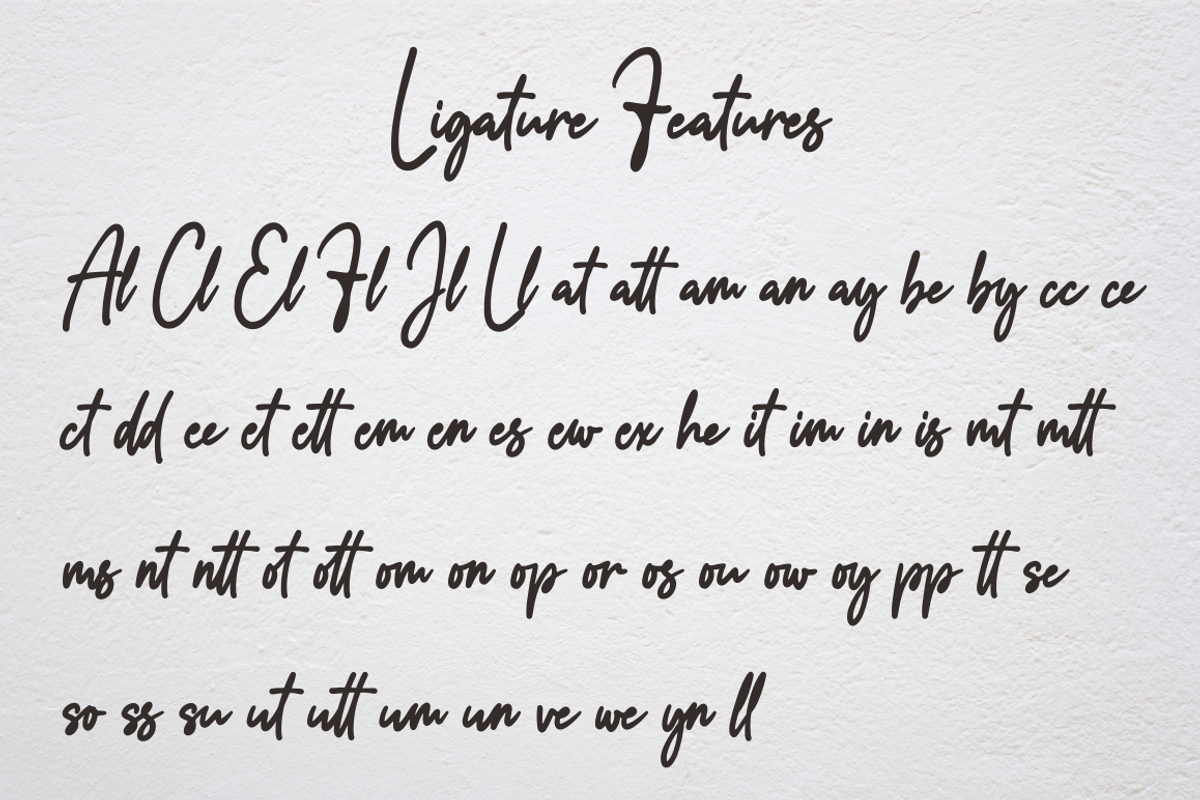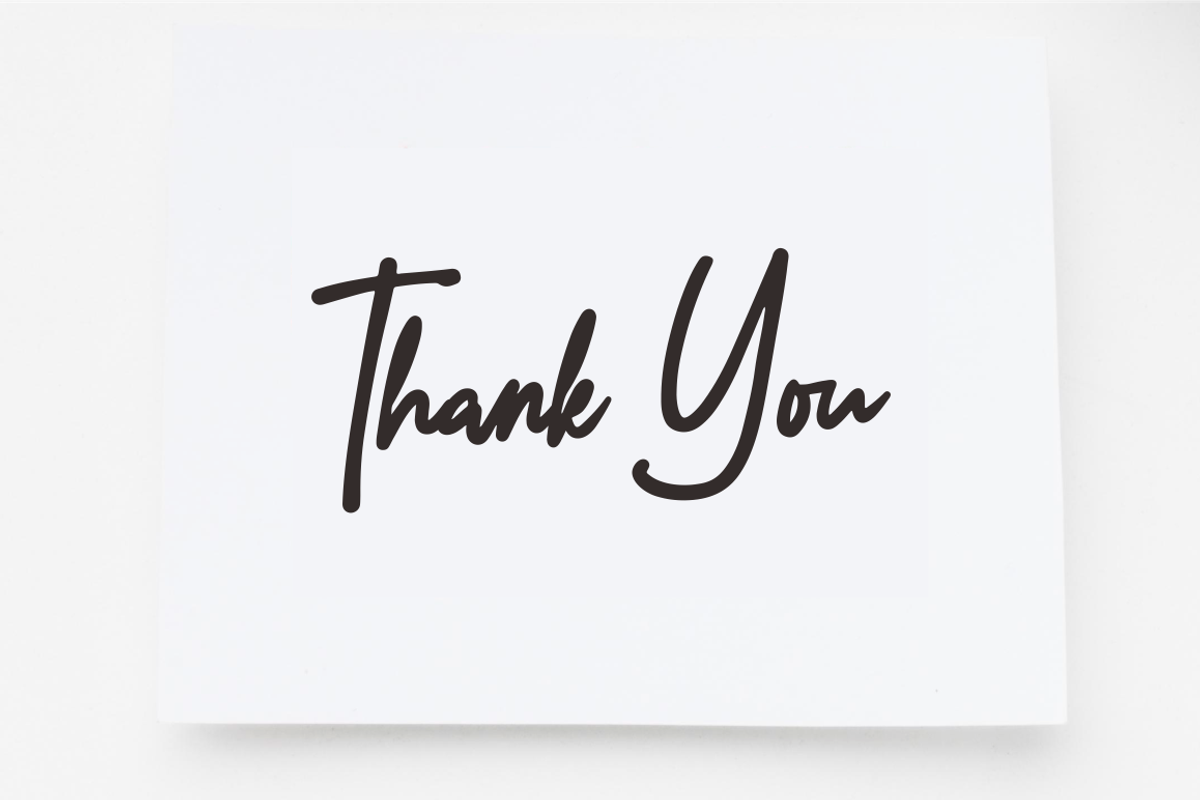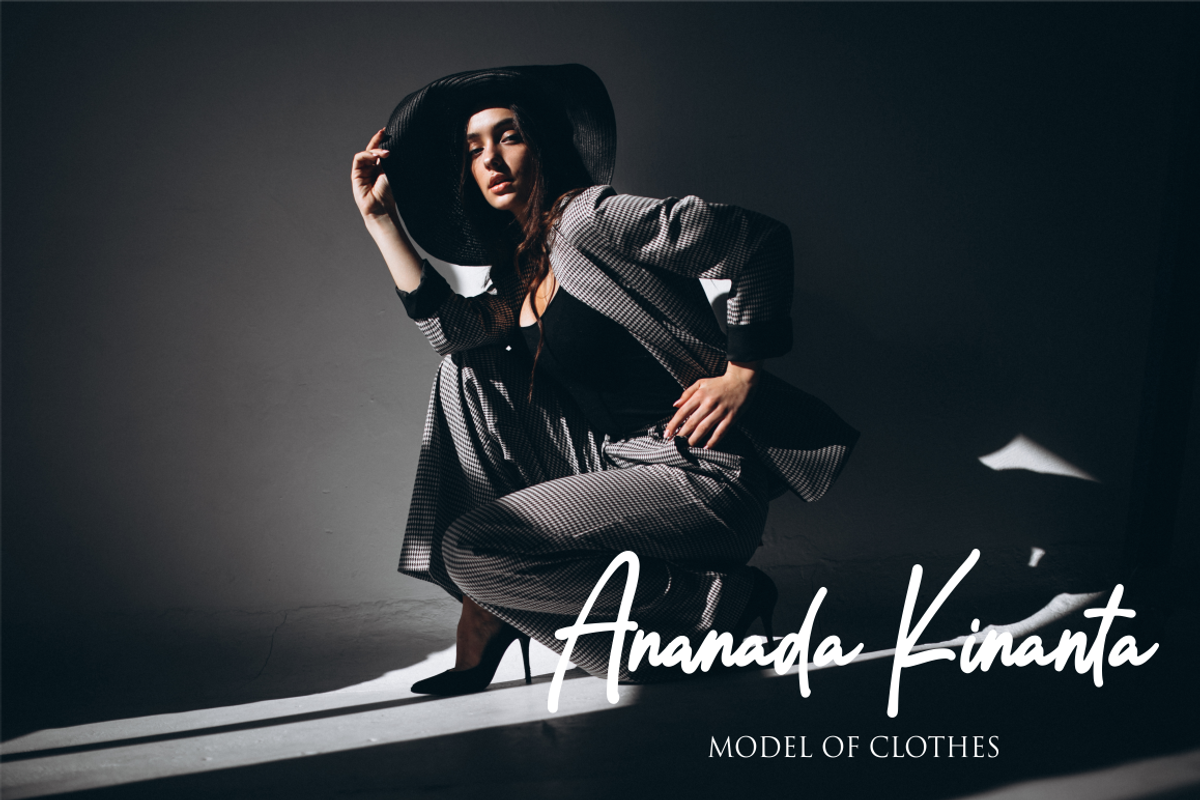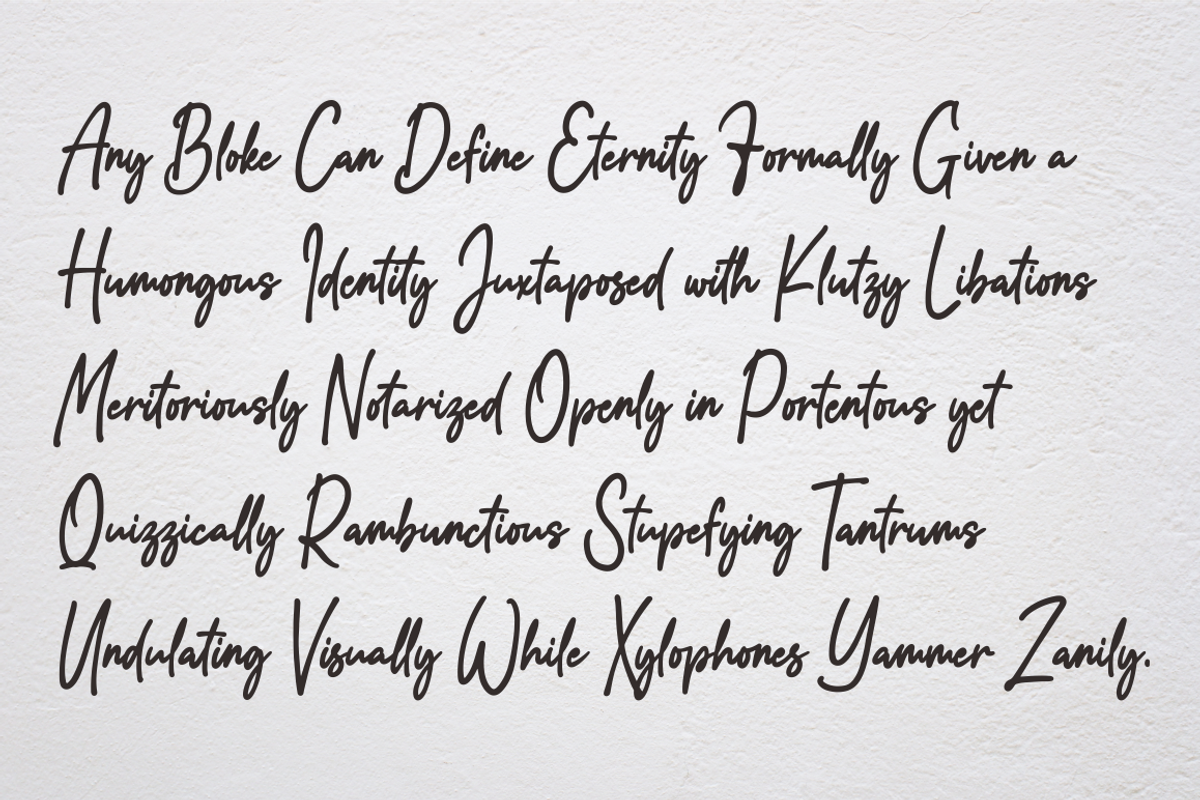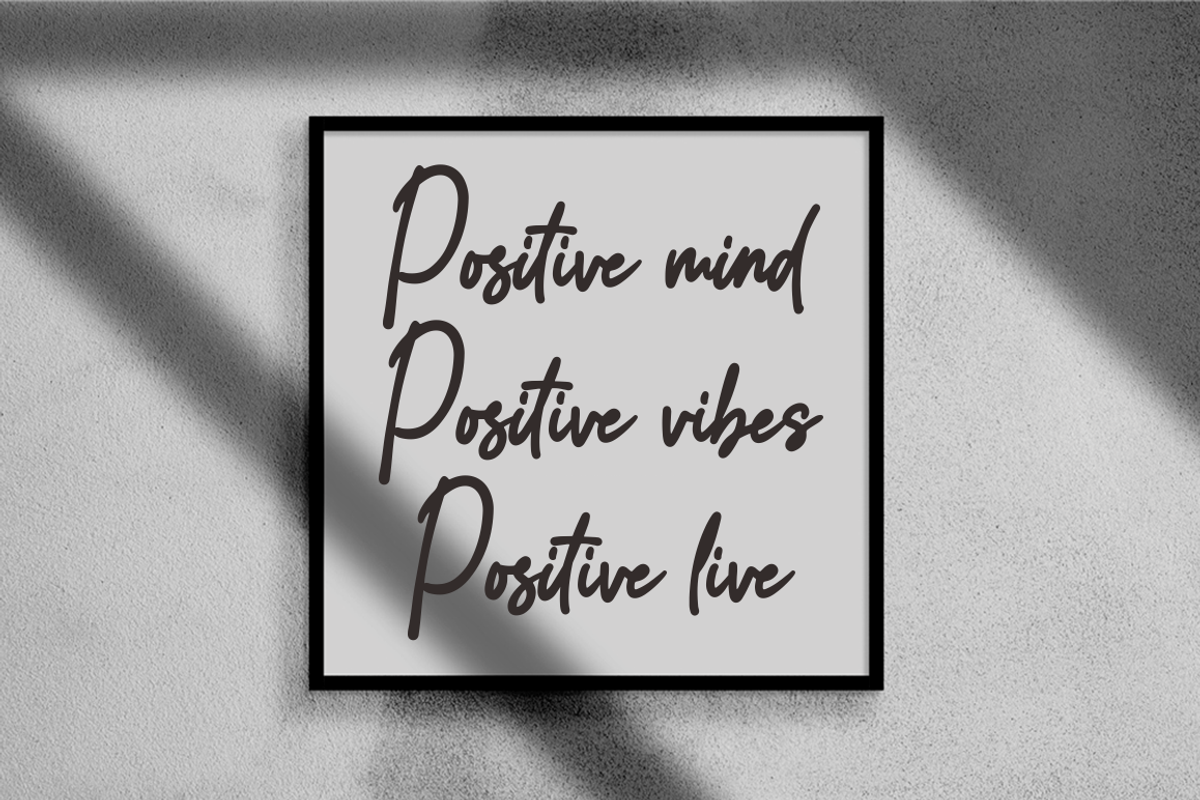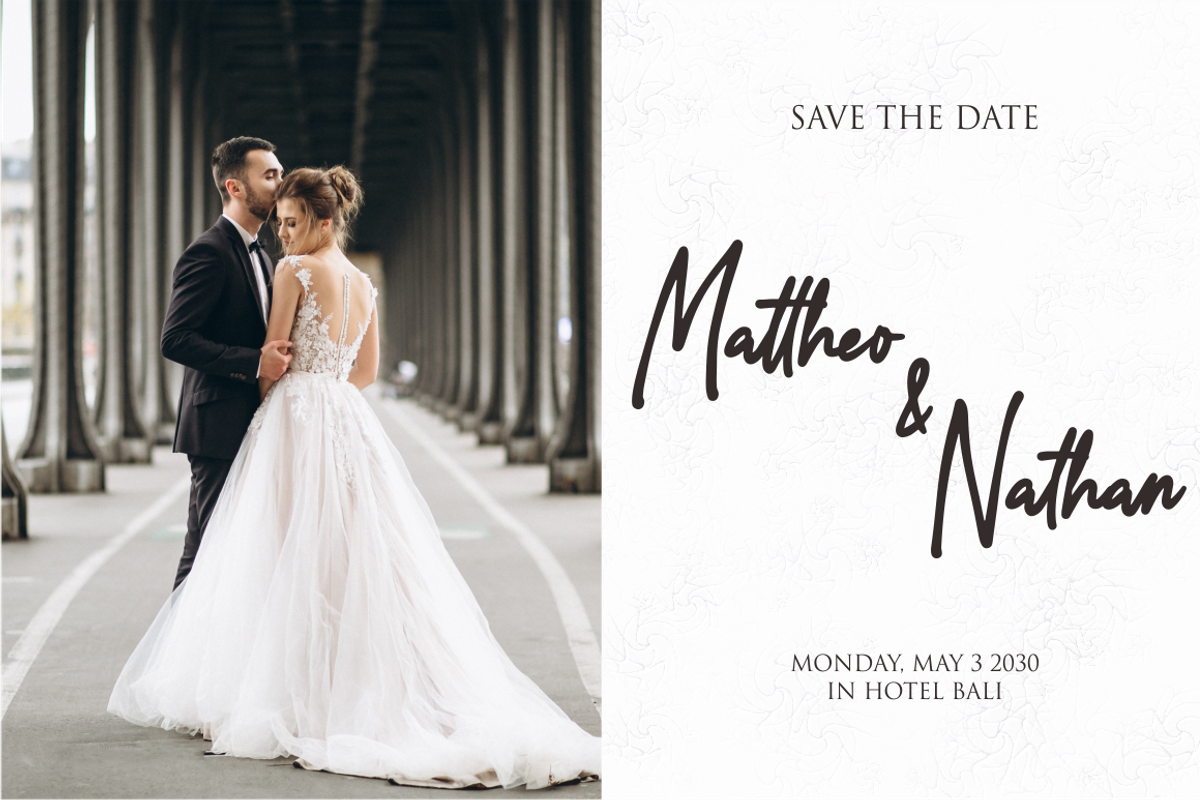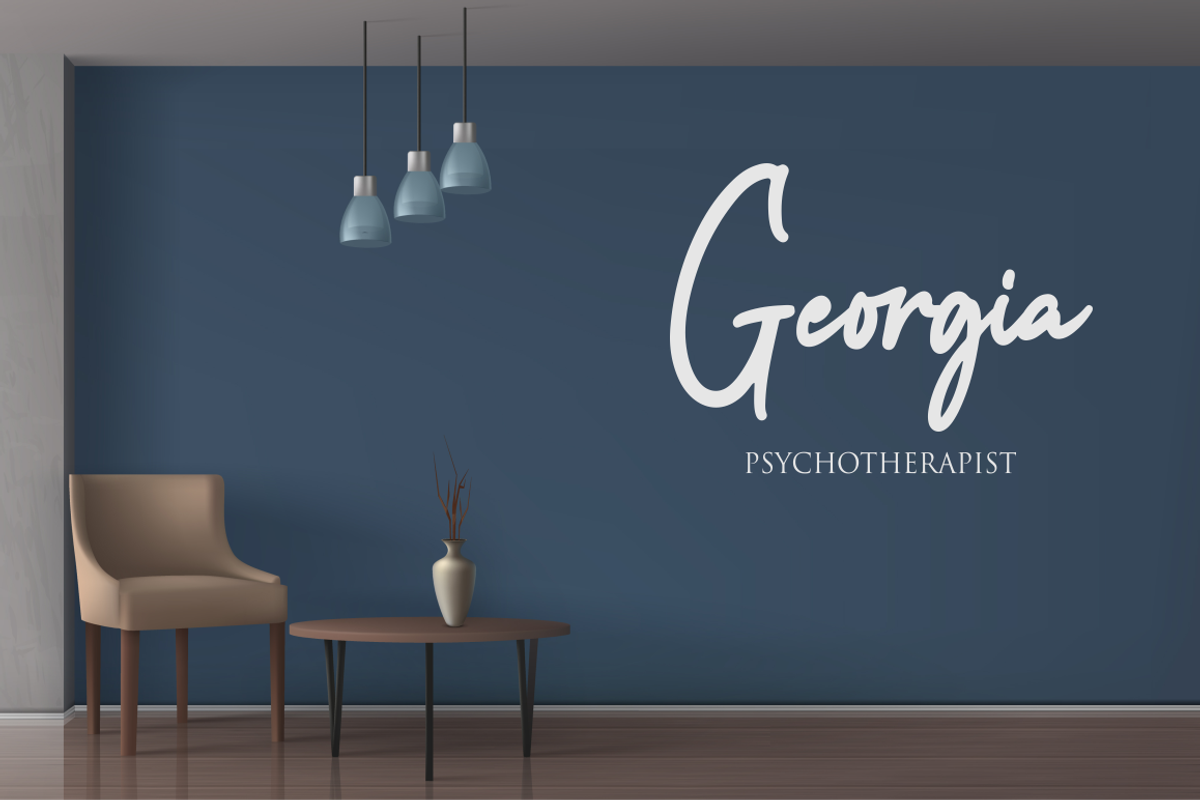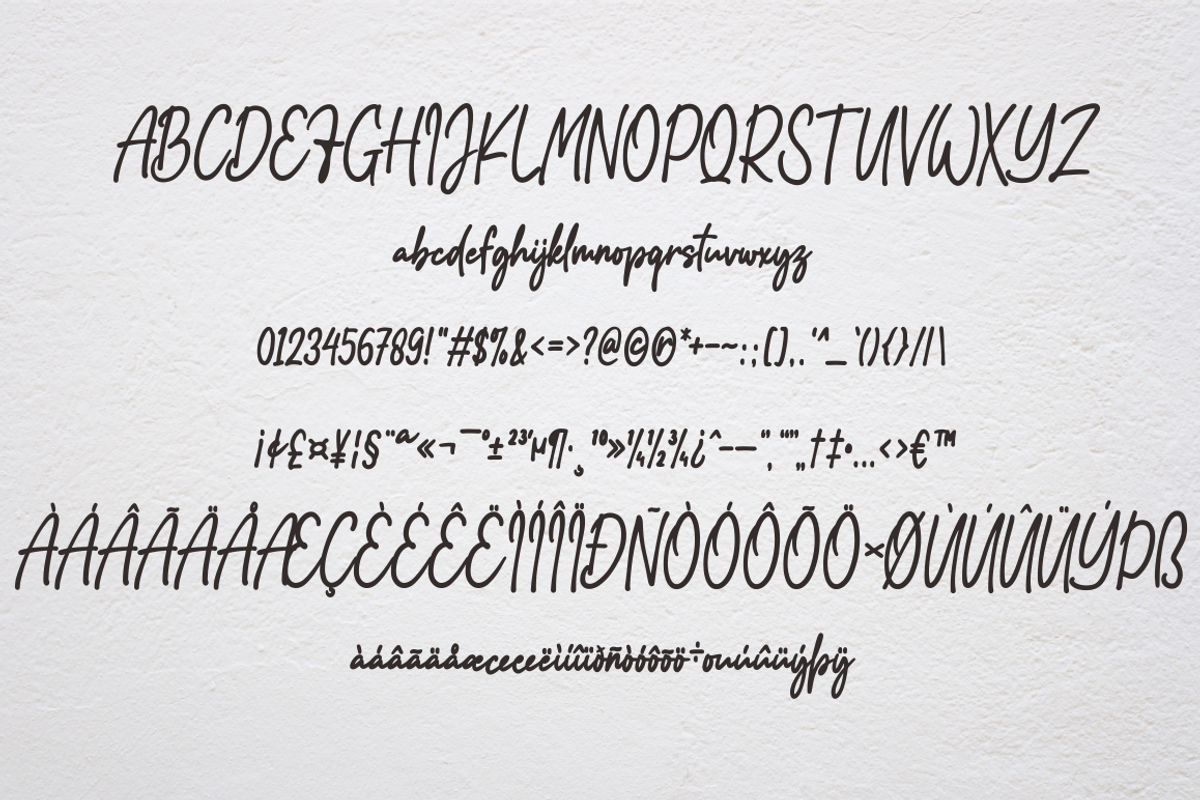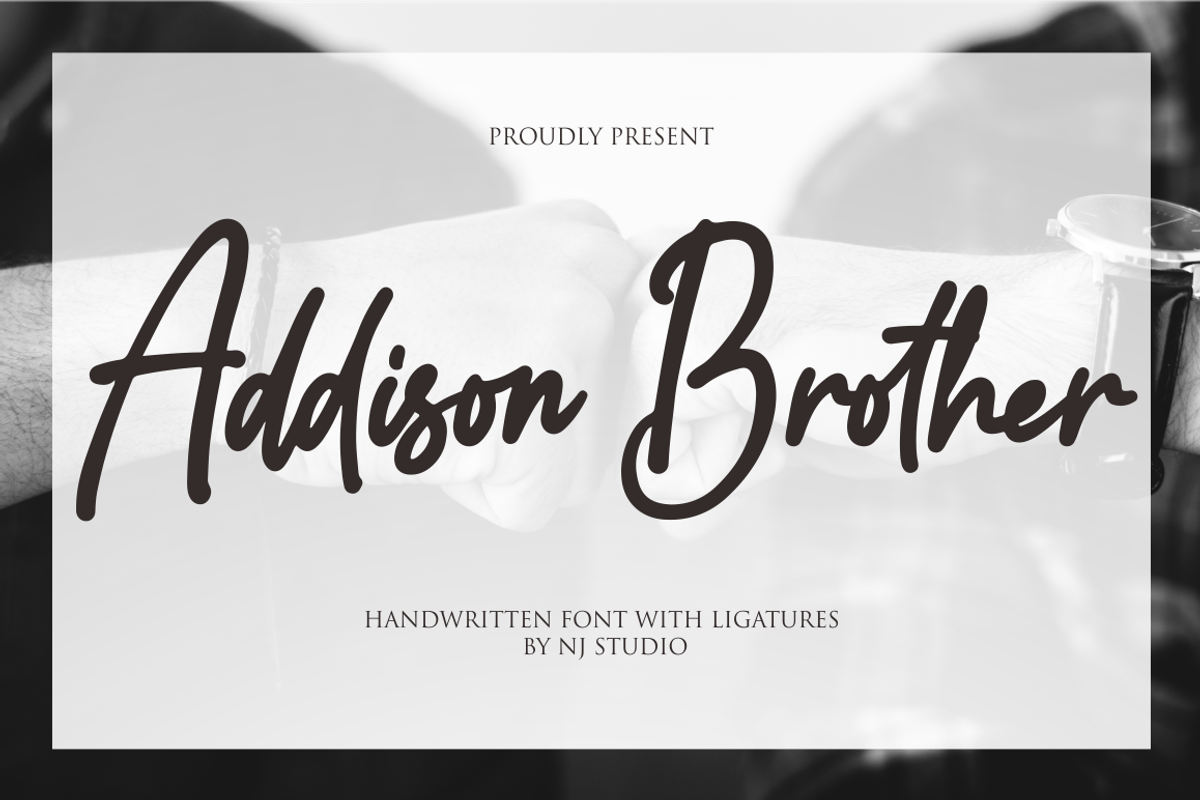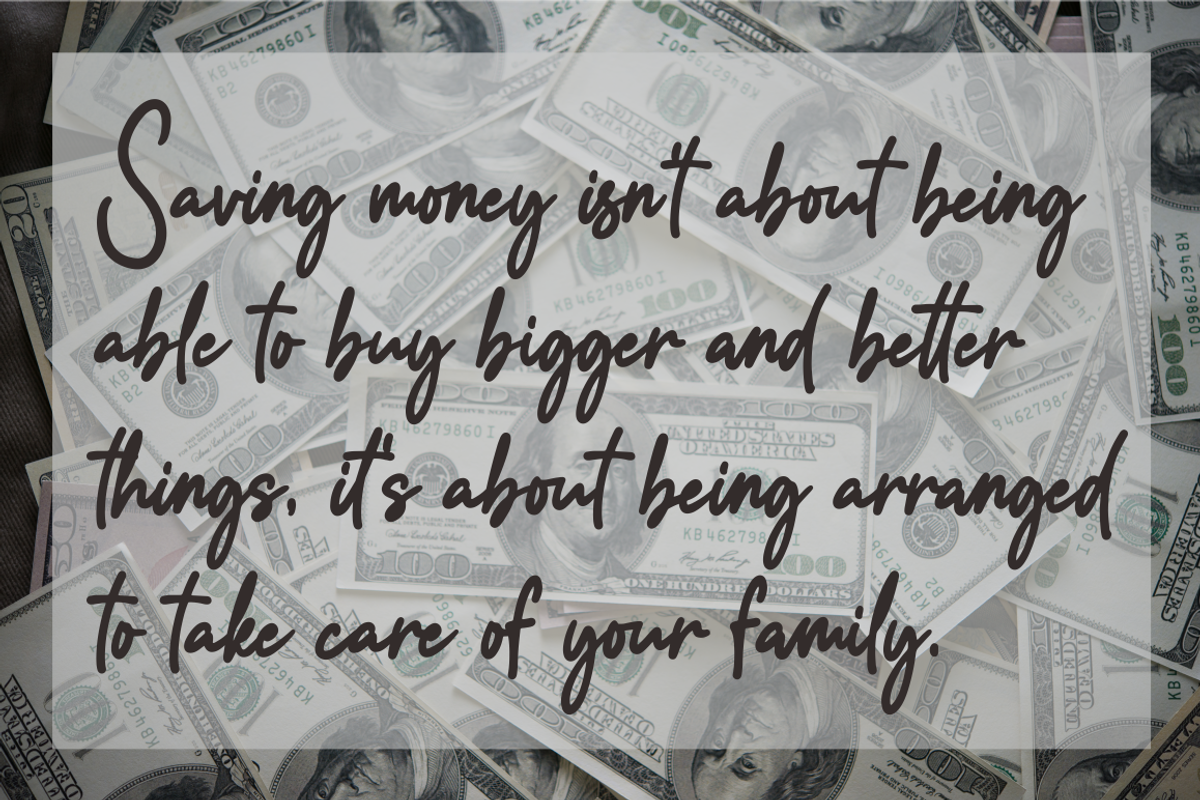
Addison Brother
Addison Brother A Handwritten Fonts with ligatures are font designs that are made for various vector designs, printing such as digital wedding invitations, blogs, online shops, social media, while printing can be used in the field of product clothing, accessories, bags, pins, logos, business cards, watermarks and many others ...
so it can make your product look elegant and attractive, and also Multilingual support!!!